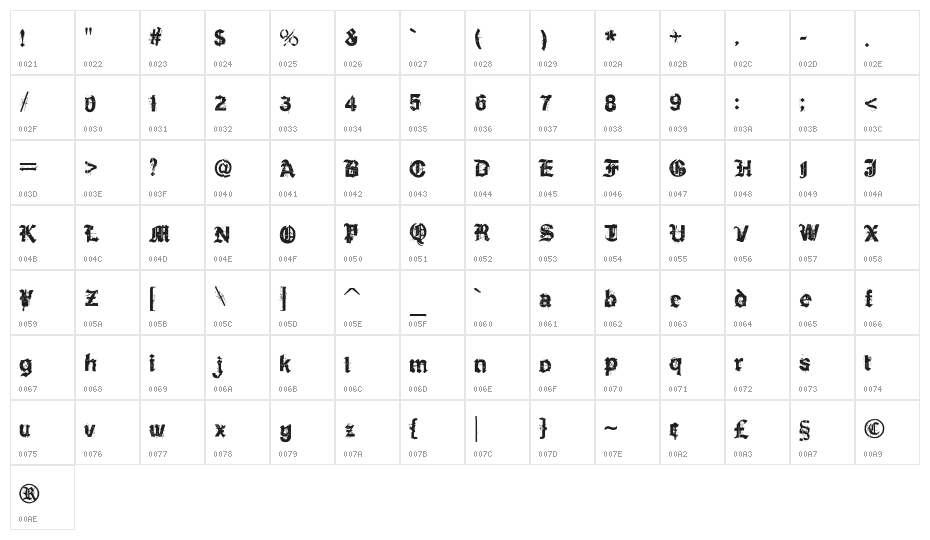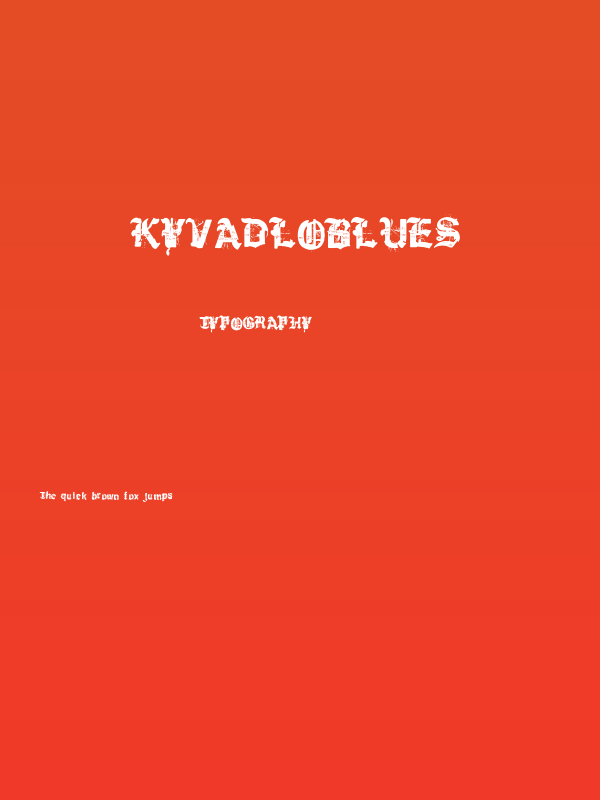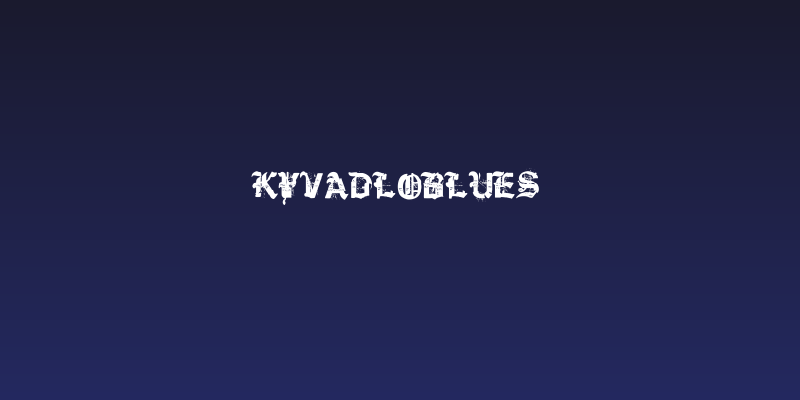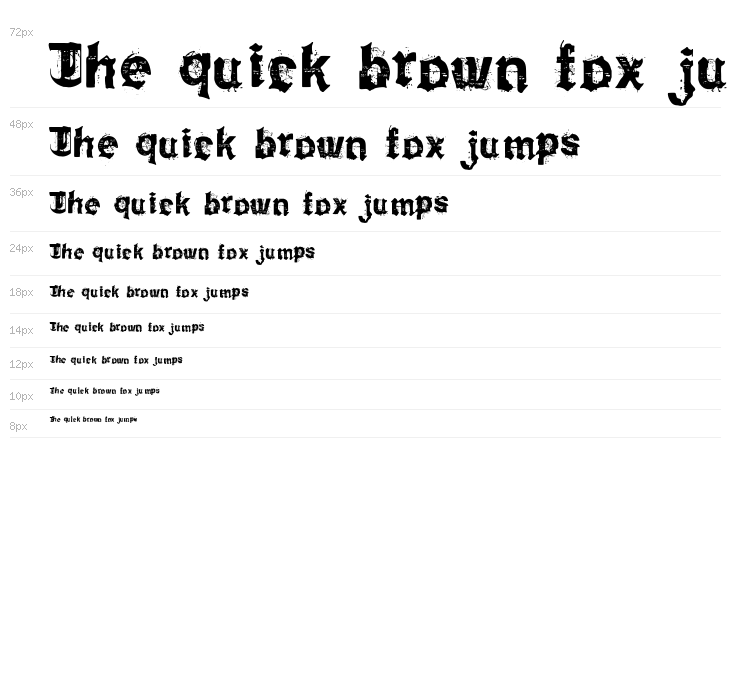
KyvadloBlues Font
KyvadloBlues Description
This font features a distressed, grunge style with a gothic influence, characterized by its bold and dramatic letterforms. The uppercase and lowercase letters exhibit a strong, angular structure with decorative elements that give it a vintage, worn appearance. The numerals and special characters maintain this rugged aesthetic, making it ideal for projects that require a bold, eye-catching design. The texture within the letters adds depth and a sense of history, reminiscent of old signage or posters. Its unique style makes it stand out, perfect for creating a strong visual impact.
| Overall Style | Vintage, Decorative |
| Proposed Projects | Ideal for album covers, posters, branding for edgy or alternative products, and any design needing a strong, vintage feel. |